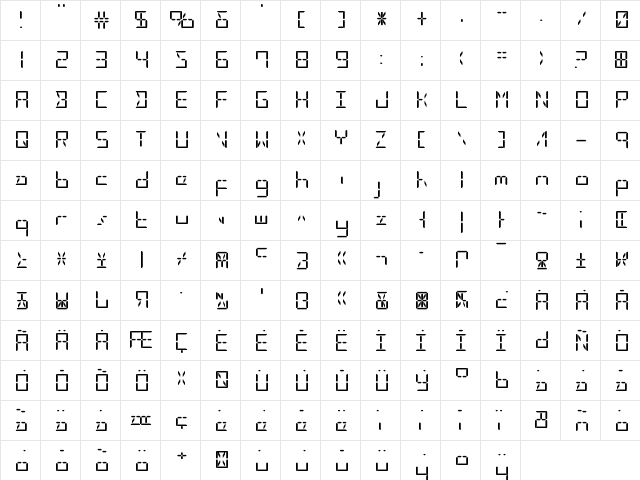
LED Sled Straight Expanded Expanded
Design Context for LED Sled Straight Expanded Typeface
LED Sled Straight Expanded takes a measured approach to typography — its balanced proportions and neutral character make it a reliable workhorse for both digital and print work.